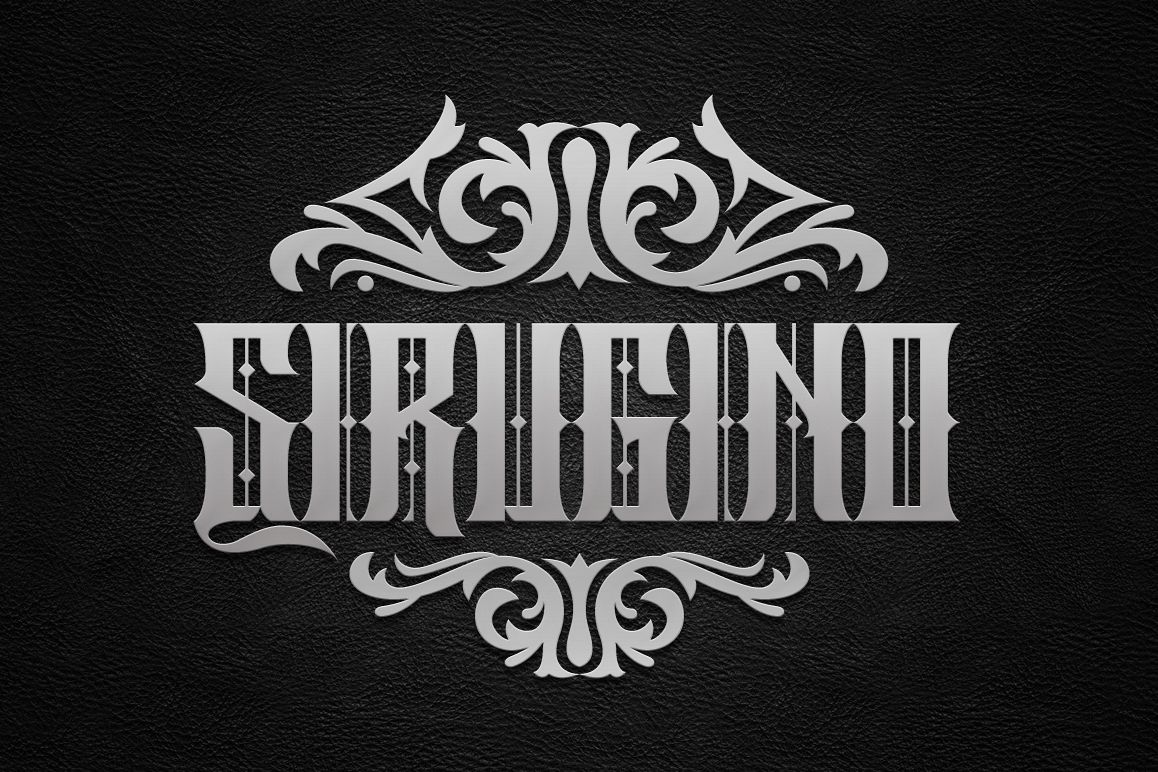
Sirugino Typeface
Sirugino-Regular
Sirugino-Ornate
Finally! Introducing "Sirugino" Typeface, the another combination of gothic and black-letter style. feel the gothic with that simple metrics adjustments and utilize your design with this one. recommended for your sticker, key-chain, patches or another cutting stuffs also looks good for your display, title, headline, subheadline, in your artworks. Available in regular (clean) and ornate style!